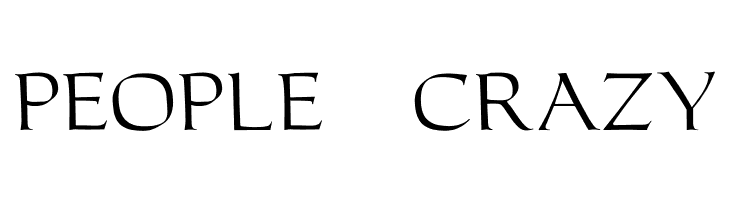
Street Variation - Rev Font
- Font: Street Variation - Rev
A classic serif typeface with sharp serifs and balanced proportions, ideal for formal and professional use.